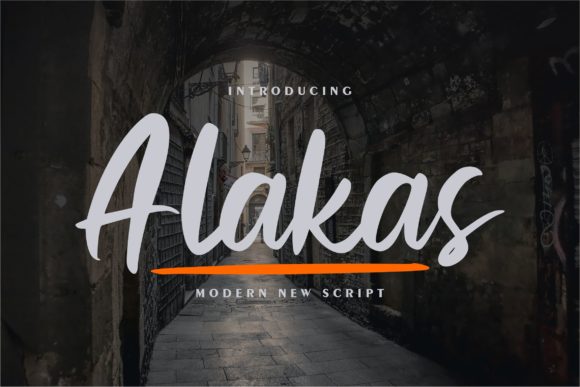
The Joy of Alakas Font: A Designer’s New Best Friend
I’ll never forget the time I was working on a project for a client who wanted a bold, modern look that still felt approachable and friendly. I spent hours scrolling through font after font, but nothing seemed quite right. That was until I stumbled upon Alakas Font. This beautiful script font has since become a staple in my design toolkit, and I’m excited to share its awesomeness with you! 😊
An Honest Review of Alakas Font
- ✨ Bold and modern: Alakas Font has a fresh, contemporary feel that’s perfect for making a statement.
- ✅ Handwritten charm: This font still feels personal and approachable, like you’re reading someone’s handwriting.
- 🎉 Versatile: Alakas Font works beautifully for headings, titles, and even short paragraphs of text.
While Alakas Font is amazing, it’s not perfect. Here are a few things to keep in mind:
- 🤔 Legibility at small sizes: Like many script fonts, Alakas can get a bit tricky to read at very small sizes. It’s best used at 18px or larger.
- ⚠️ Limited use for body text: While it’s technically possible to use Alakas for longer blocks of text, it’s really designed to shine as a headline or title font.
The Story Behind Alakas Font
While I couldn’t find any information on the exact origins of Alakas Font, it’s clear that it was designed with creativity and joy in mind. The font’s creator likely wanted to craft a bold, modern script font that still felt approachable and friendly. Whether or not that’s the “real” story, one thing is certain: Alakas Font has captured the hearts of designers everywhere!
Q: What makes Alakas Font so special?
A: Alakas Font is special because of its unique blend of bold, modern style and handwritten charm. It’s perfect for making a statement in your designs!
Q: Is Alakas Font easy to read?
A: Alakas Font is generally easy to read, especially at larger sizes. However, like many script fonts, it can get a bit tricky to read at very small sizes.
Q: Can I use Alakas Font for body text?
A: While it’s technically possible to use Alakas for body text, it’s really designed to shine as a headline or title font. For longer blocks of text, you might want to choose a more traditional font.